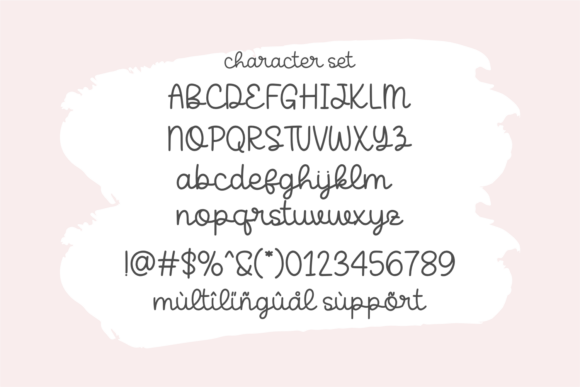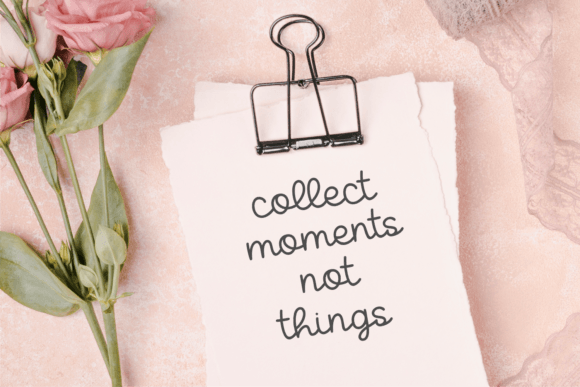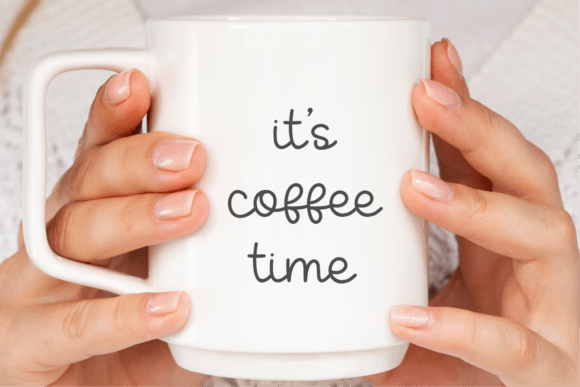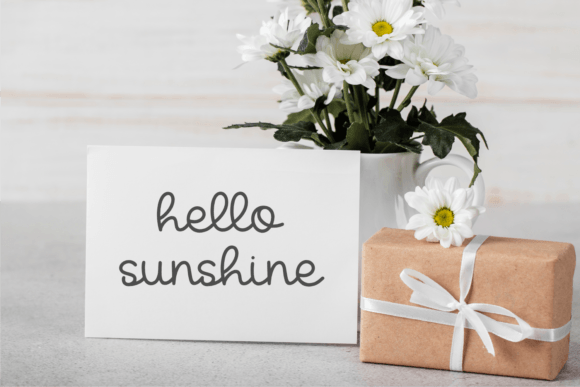
Dreamy Escape Font: Add a Touch of Whimsy to Your Designs
Are you looking for a font that can add a dash of playfulness and charm to your projects? Look no further than the Dreamy Escape Font. This sweet and playful handwritten font is designed to bring a touch of whimsy to your designs, making it perfect for a variety of creative projects.
What is Dreamy Escape Font?
Dreamy Escape is a carefully crafted handwritten font that boasts rounded characters and charming simplicity. Its unique design makes it an excellent choice for designers and crafters who want to add a personal touch to their work. Whether you’re creating greeting cards, baby shower invitations, quotes, or social media posts, this font is sure to impress.
Key Features of Dreamy Escape Font
• Playful and Whimsical Design: The Dreamy Escape Font features a playful and whimsical design that is sure to capture the attention of your audience.
• Rounded Characters: The font’s rounded characters give it a soft and friendly feel, making it perfect for designs that require a personal touch.
• Charming Simplicity: The font’s simplicity is one of its most charming features, making it easy to read and understand.
• Versatile: The Dreamy Escape Font is versatile and can be used for a variety of projects, including greeting cards, baby shower invitations, quotes, and social media posts.
Uses of Dreamy Escape Font
The Dreamy Escape Font is perfect for a variety of creative projects, including:
• Greeting Cards: Add a personal touch to your greeting cards with this charming font.
• Baby Shower Invitations: Create adorable baby shower invitations that will delight your guests.
• Quotes: Add a touch of whimsy to your quotes and make them stand out.
• Social Media Posts: Use the Dreamy Escape Font to create engaging and eye-catching social media posts.
Benefits of Using Dreamy Escape Font
Using the Dreamy Escape Font in your designs offers several benefits, including:
• Unique and Eye-Catching Designs: The font’s unique design will help your projects stand out from the crowd.
• Emotional Connection: The font’s playful and whimsical design can help create an emotional connection with your audience.
• Easy to Read: The font’s simplicity makes it easy to read and understand.
• Time-Saving: The font’s versatility saves you time and effort in finding the perfect font for your projects.
Tips for Using Dreamy Escape Font
Here are some tips for using the Dreamy Escape Font in your designs:
• Pair with Other Fonts: Pair the Dreamy Escape Font with other fonts to create a unique and eye-catching design.
• Experiment with Colors: Experiment with different colors to find the perfect combination for your design.
• Use for Headings and Titles: Use the font for headings and titles to add a touch of whimsy to your design.
• Keep it Simple: Keep your design simple and clean to let the font shine.
The Dreamy Escape Font is a sweet and playful handwritten font that can add a touch of whimsy to your designs. Its rounded characters and charming simplicity make it perfect for a variety of creative projects. With its versatility, ease of use, and unique design, this font is a must-have for designers and crafters. So why wait? Download the Dreamy Escape Font today and create dreamy and lighthearted designs that will delight your audience.